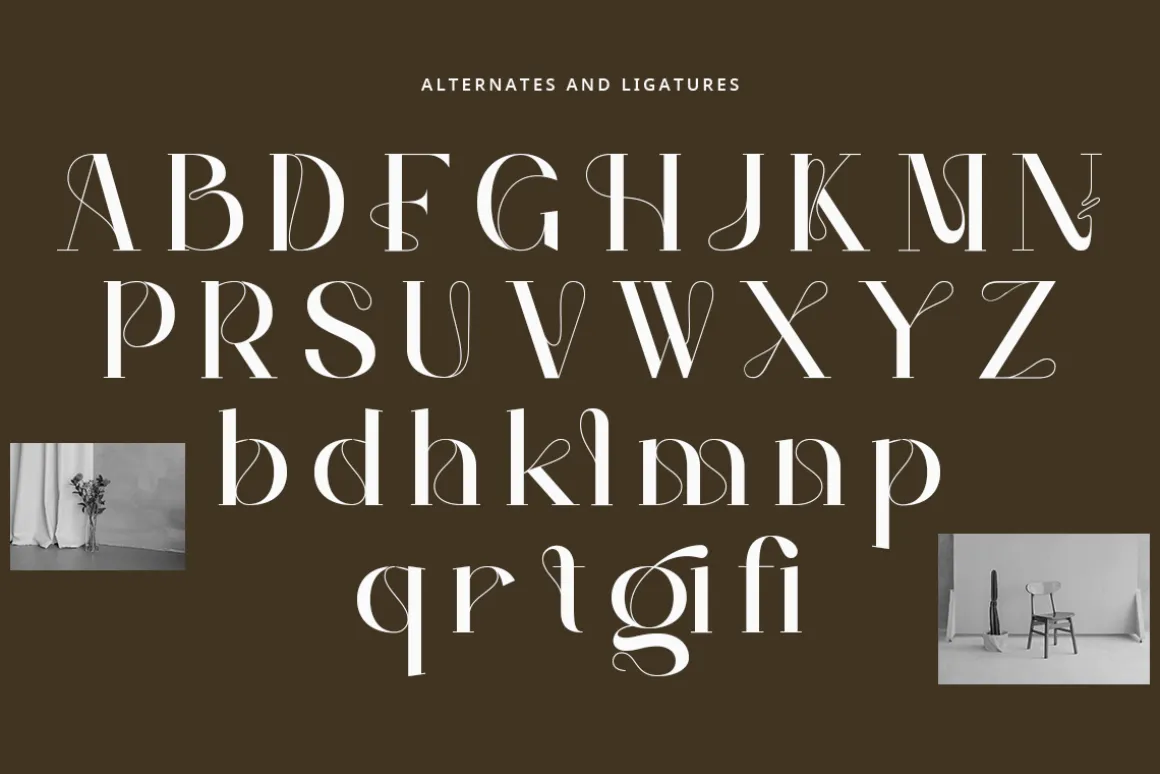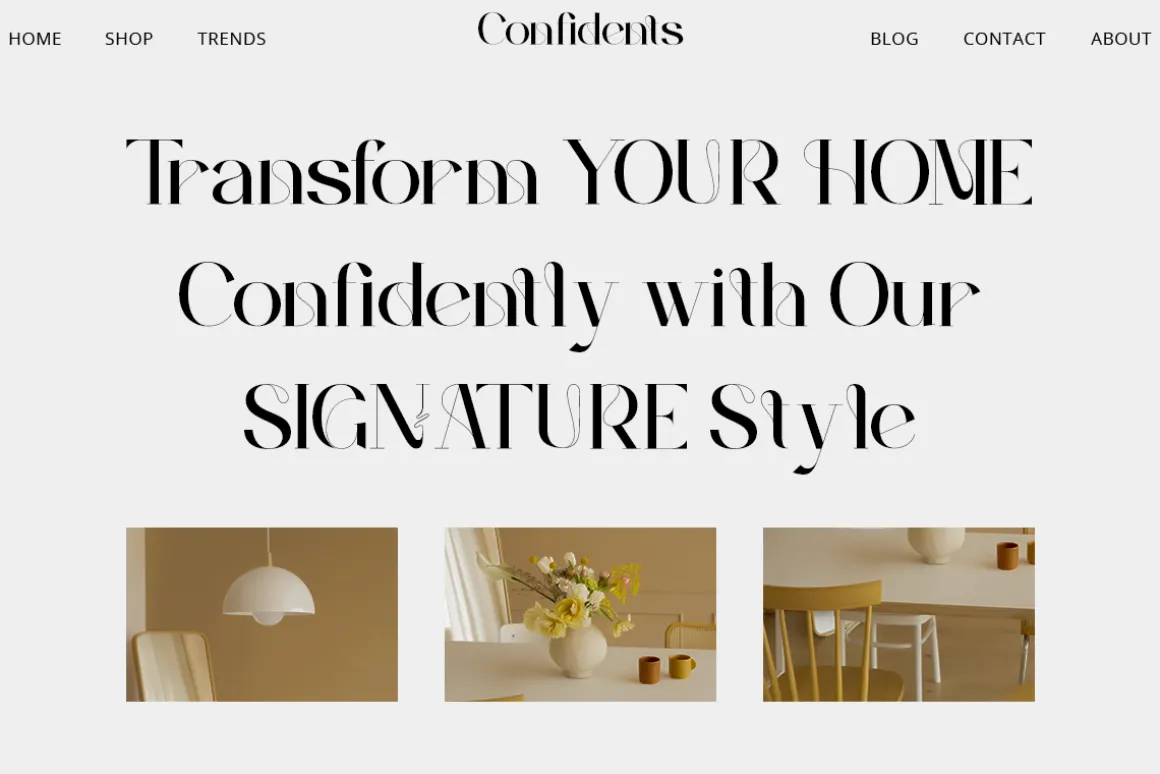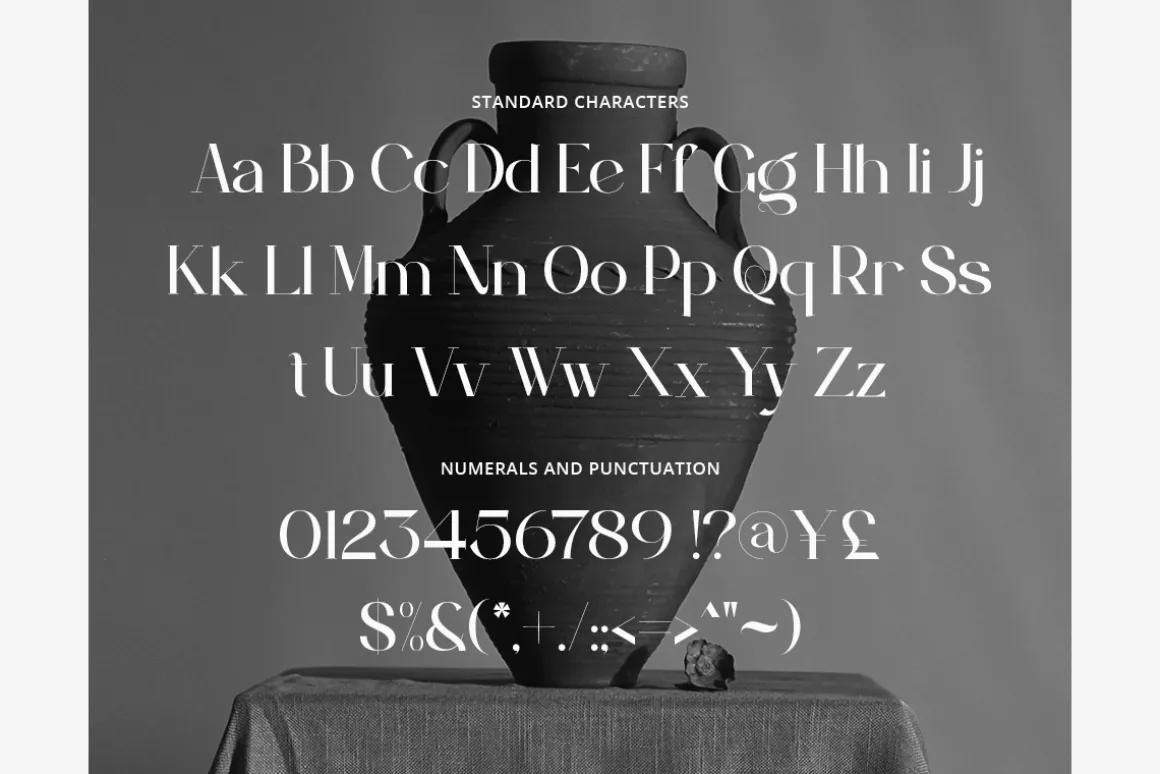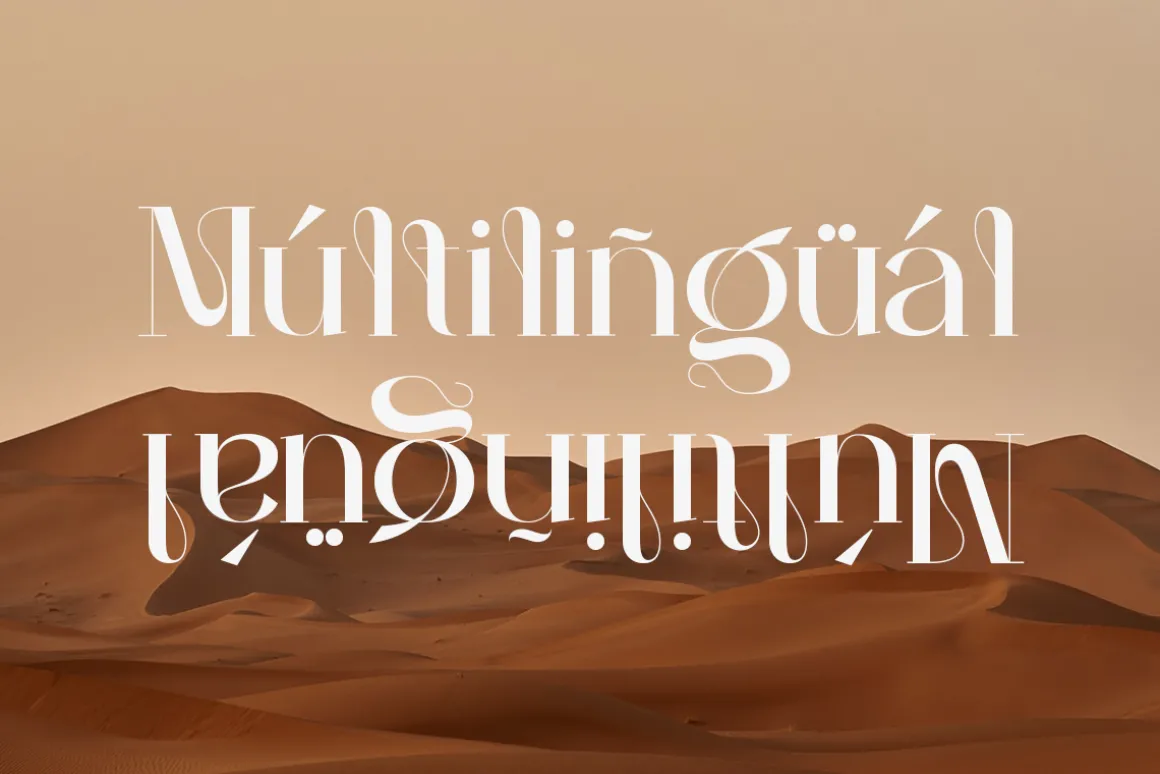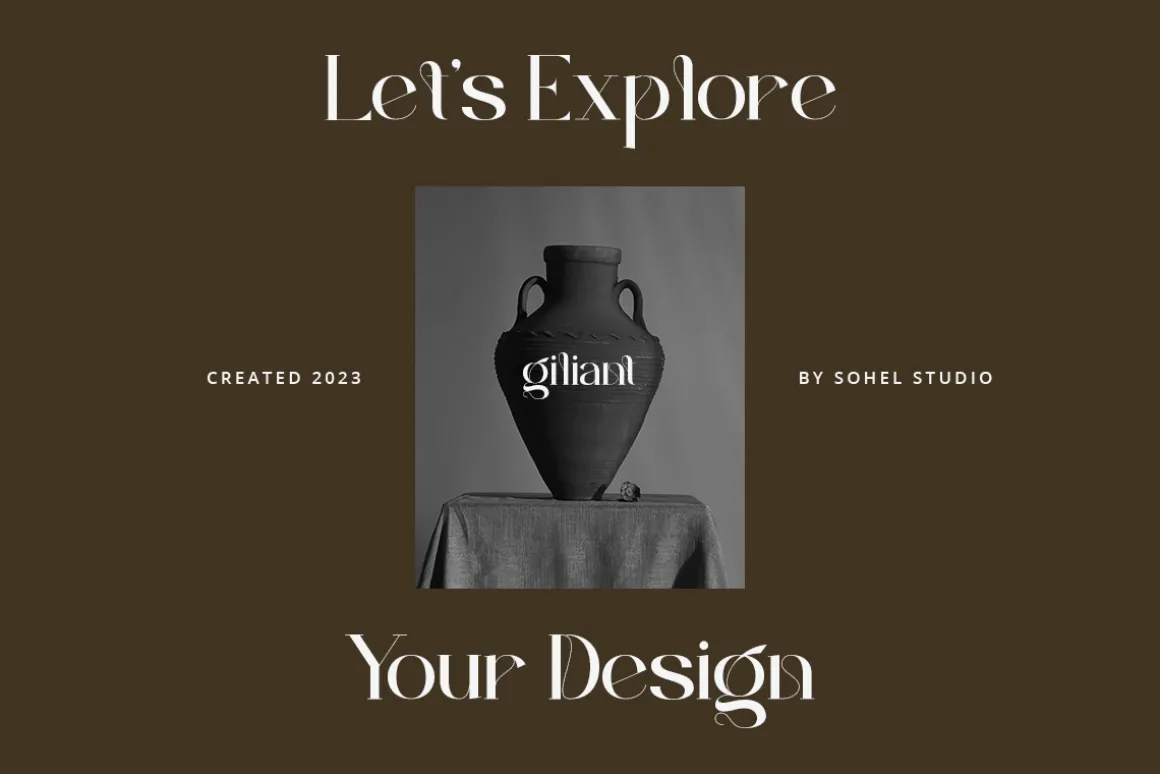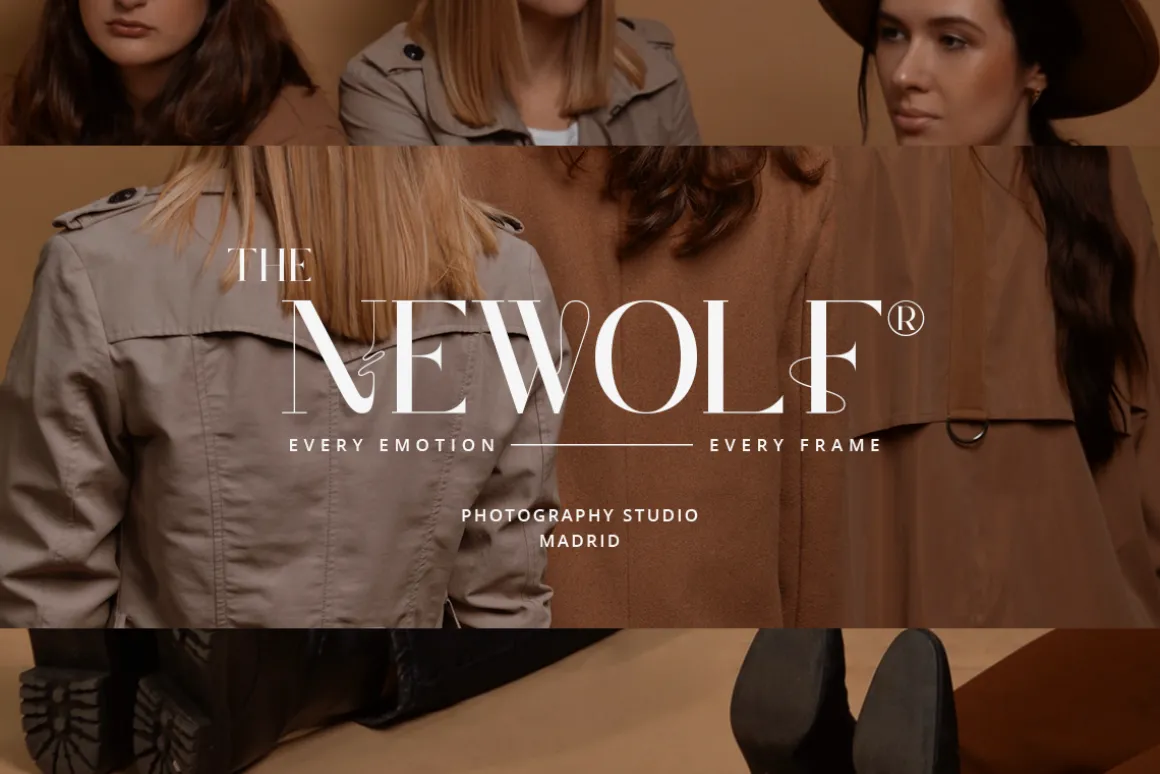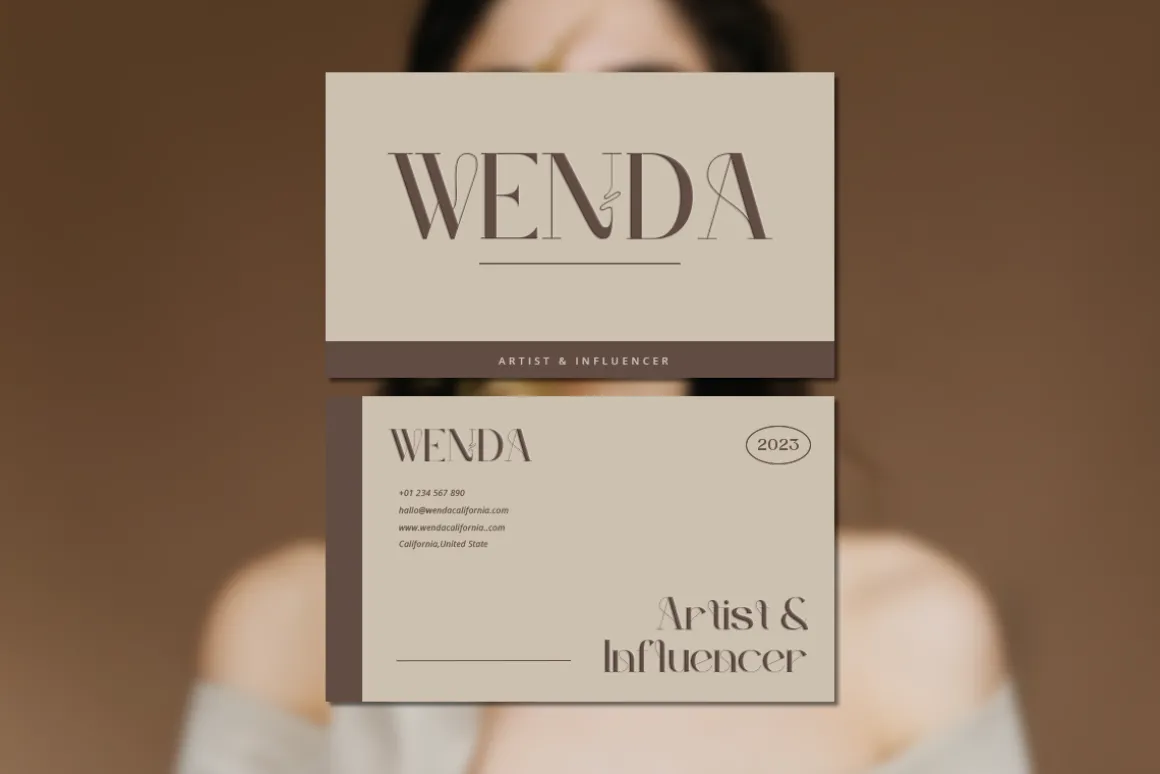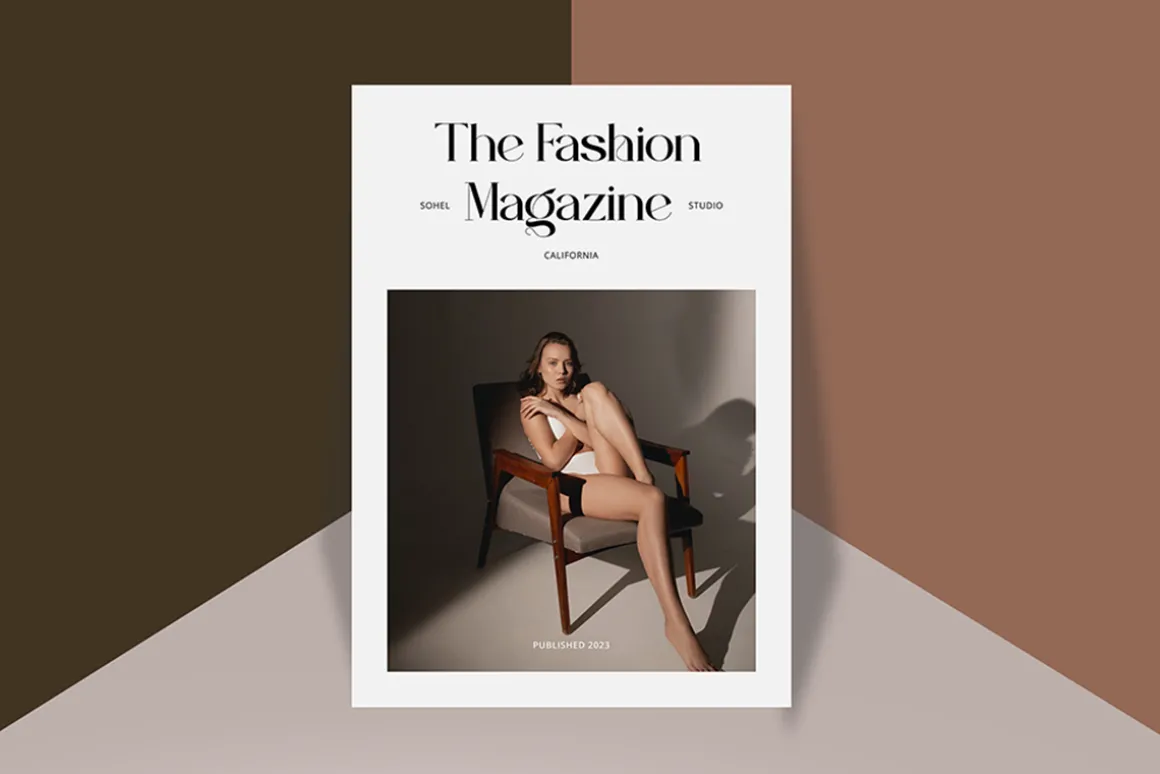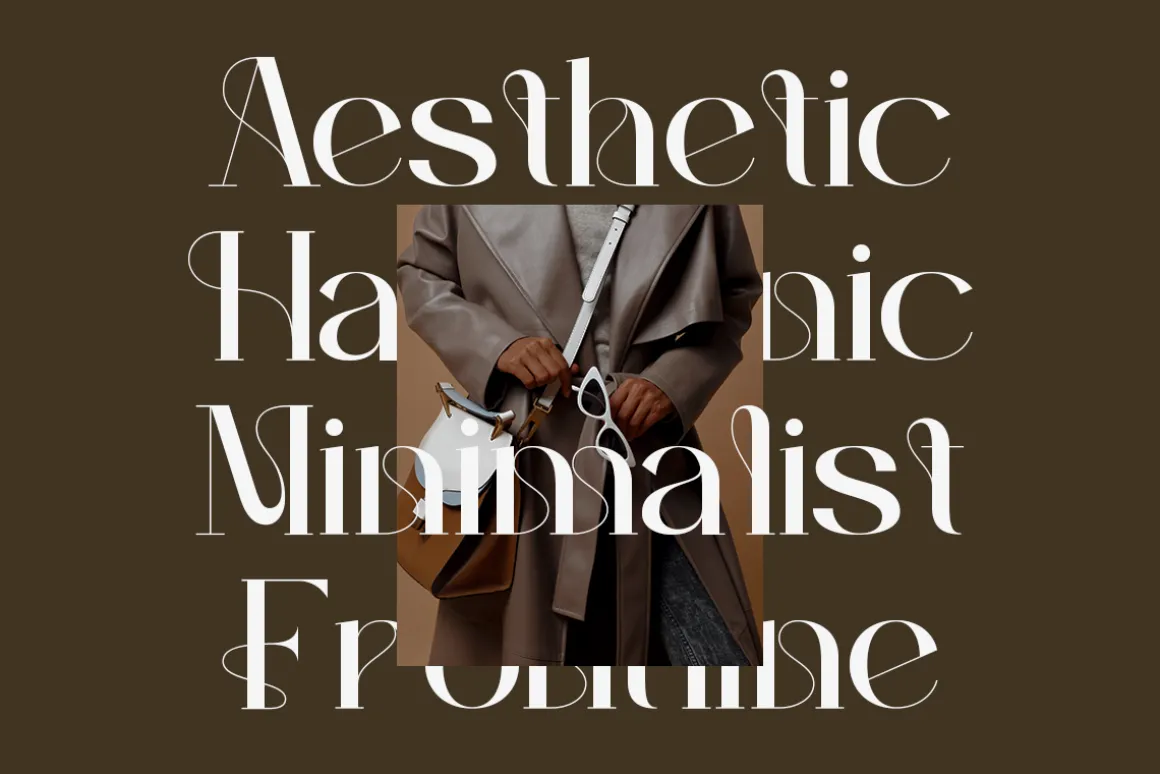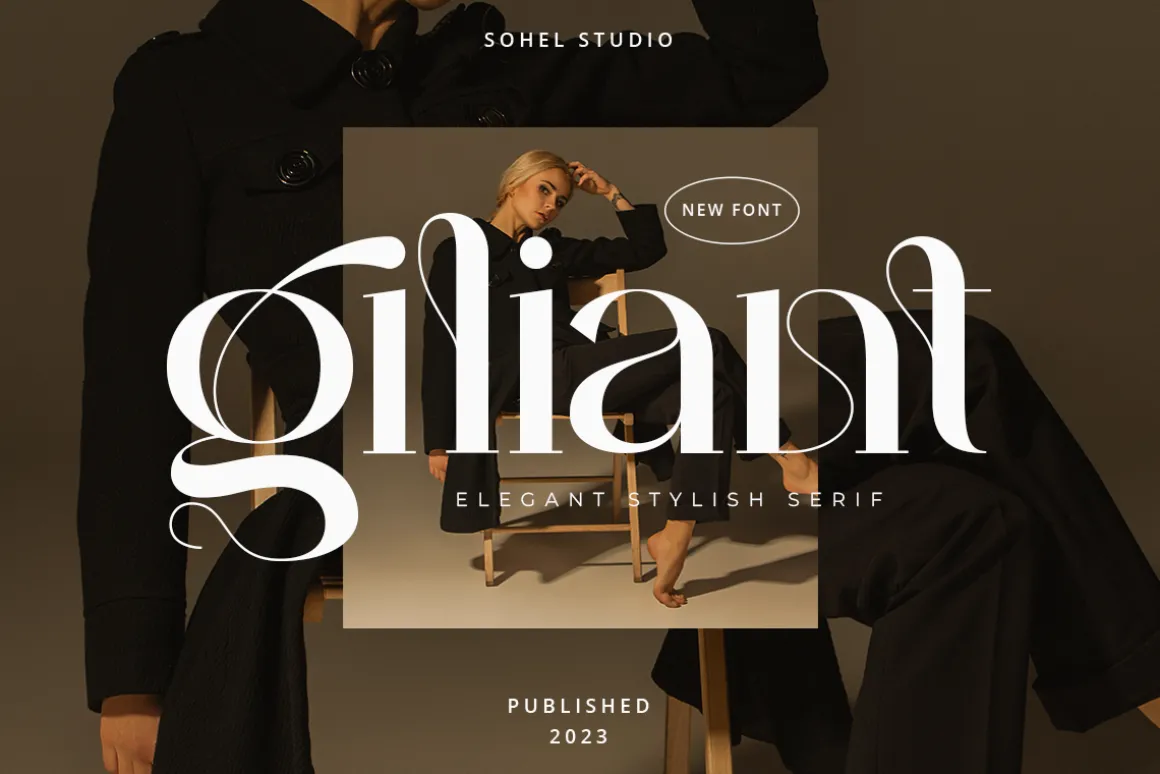
Giliant is a Modern elegant serif typeface with Unique alternative , multilingual support with perfect kerning. This typeface is perfect for an elegant & luxury logo , classy editorial design, women’s magazine, fashion brand , cosmetic brand, fashion promotion , modern advertising design, invitation card, art quote, home decoration , book/cover titles, special events, Tote bag, T-shirt, Advertising and much more.
Giliant Features:
- Uppercase And Lowercase
- Alternates
- Numerals & Punctuation
- Accented characters
- Multilingual Support